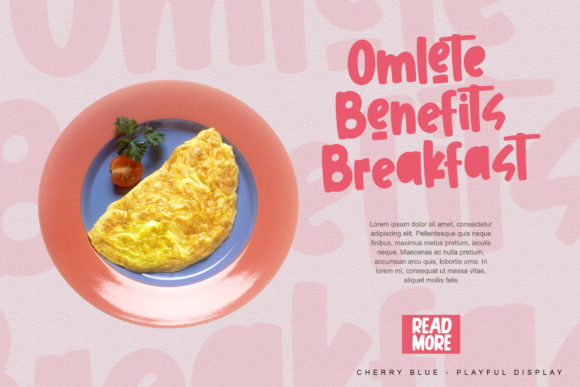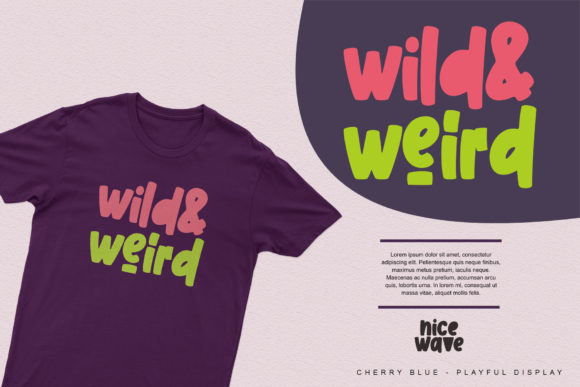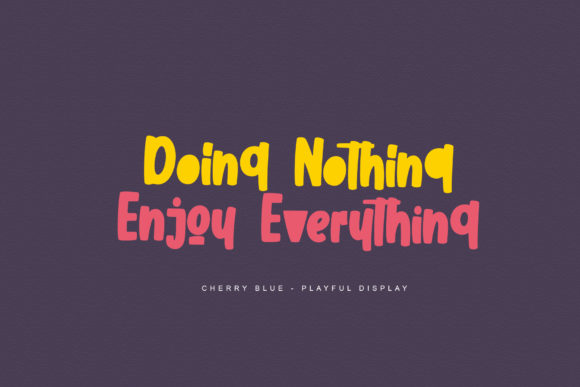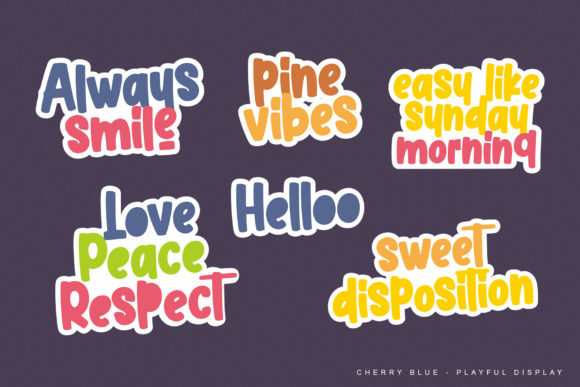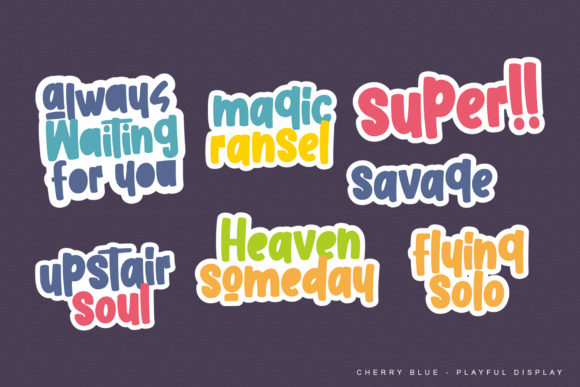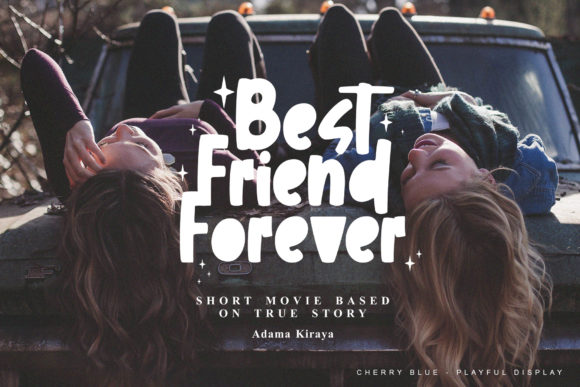
Introduction to Cherry Blue Font
Remember the excitement of discovering the perfect font for your creative project? It’s that moment when everything falls into place, and your design comes alive. For many designers, finding the right font can be a challenge, but with the rise of high-quality design resources, it’s become easier than ever.
One such treasure trove is the Cherry Blue Font, a sweet and playful display font that has captured the hearts of many designers. Its friendly style and versatility make it a top choice for casual designs, and its transparent background allows for seamless integration with any background. Whether you’re working on a creative project or just need a reliable design resource, the Cherry Blue Font is an excellent addition to your toolkit.
Key Features of Cherry Blue Font
- High-quality design resource ideal for creative projects, including logos, graphics, and branding materials.
- Features a transparent background, allowing for effortless background replacement and customization.
- Includes a range of font sizes and resolutions, including 300 DPI and 600 DPI, for optimal display on various devices.
- Unique, bold, and eye-catching design that stands out in any creative project, making it perfect for designers seeking a distinctive look.
- Legible and readable across various platforms, including web, print, and digital media.
Honest Review: Cherry Blue Font
As a designer, I’m always on the lookout for high-quality design resources to elevate my creative projects. Recently, I had the chance to try out the Cherry Blue Font, and I’m excited to share my thoughts on it.
- ✨ Unique and modern design style that’s perfect for contemporary projects
- ✨ Transparent background option for seamless integration with other design elements
- ⚠️ Limited font weight options, which may not be suitable for all design applications
- ⚠️ Some characters may not be fully compatible with older font systems
Overall, I was impressed with the Cherry Blue Font’s unique design style and high-quality font files. While it may have some limitations, it’s still a valuable resource for designers working on creative projects. With a little tweaking, I think this font has the potential to become a go-to choice for many designers.
Cherry Blue Font is a high-quality design resource ideal for creative projects. This versatile font offers a unique blend of style and sophistication, making it perfect for various applications.
To get the most out of Cherry Blue Font, experiment with different font sizes, colors, and styles. Combine it with other design elements to create a unique and eye-catching visual identity.
Cherry Blue Font is perfect for various applications, including branding, marketing materials, social media graphics, and presentations. Its versatility makes it an excellent choice for designers and non-designers alike.